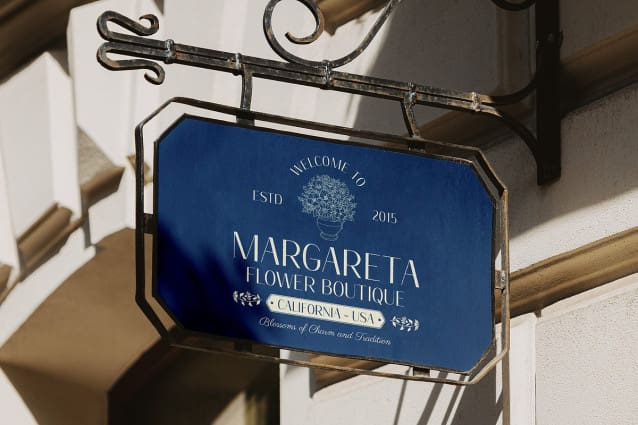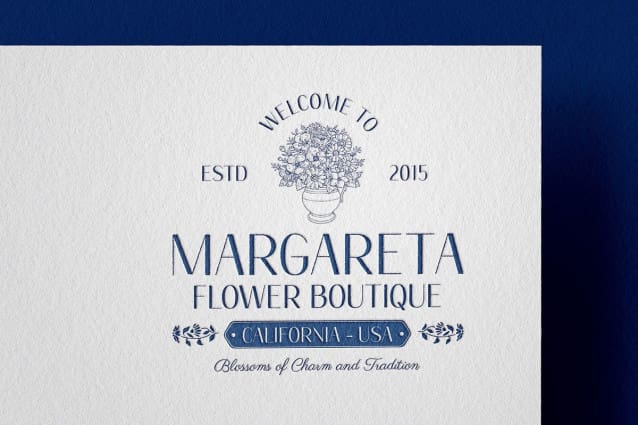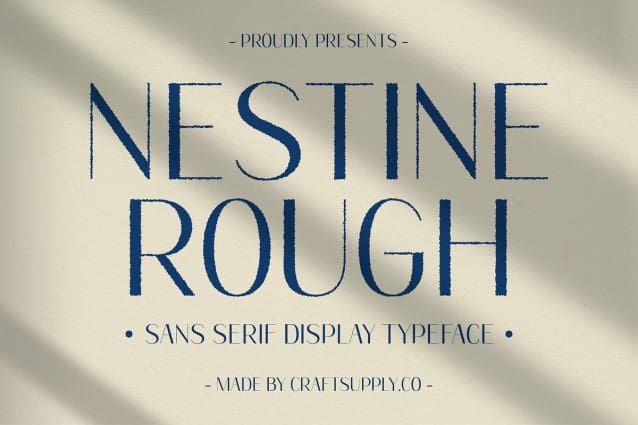
Nestine Rough Font
Nestine Rough Font is a modern sans-serif font that offers a sleek, professional appearance through its clean and minimalist forms. The simple, proportional lines give the font a refined, contemporary look, making it perfect for corporate branding, editorial layouts, and sophisticated design projects. Its understated elegance ensures a smooth and polished impression in any context.
Rough Effect Adds Texture and Depth The rough effect applied to Nestine Rough enhances the minimalist design, adding texture and depth that elevate its visual appeal. This subtle yet impactful addition introduces an organic, artistic touch, making the font stand out without sacrificing its professional demeanor. The result is a font that combines elegance with an edgy, creative twist.
Perfect for Sophisticated Yet Bold Designs Nestine Rough is ideal for designs that aim to convey a clean, sophisticated impression while retaining bold character. Whether you’re working on high-end branding, stylish logos, or eye-catching promotional materials, this font offers the perfect balance of simplicity and texture, making it versatile for a wide range of design projects. Its strong visual appeal ensures that it will make a lasting impression.